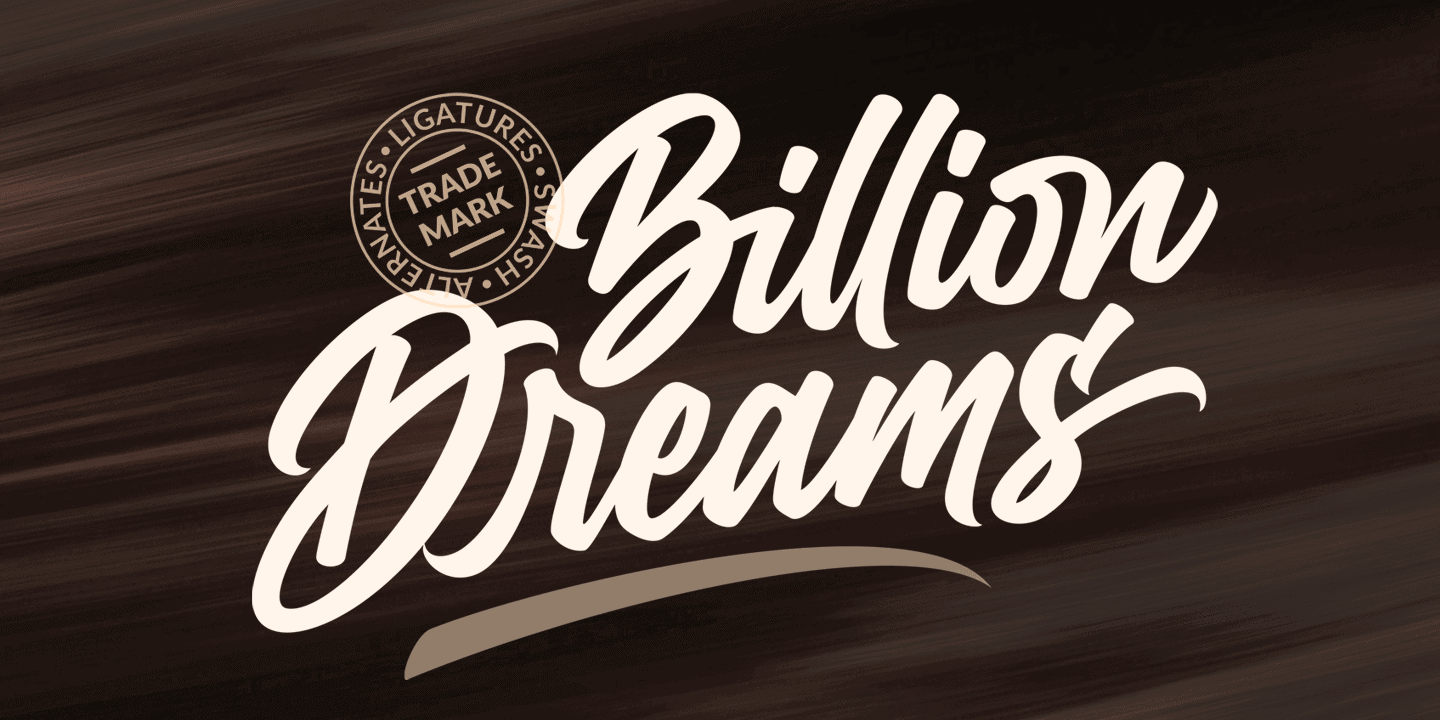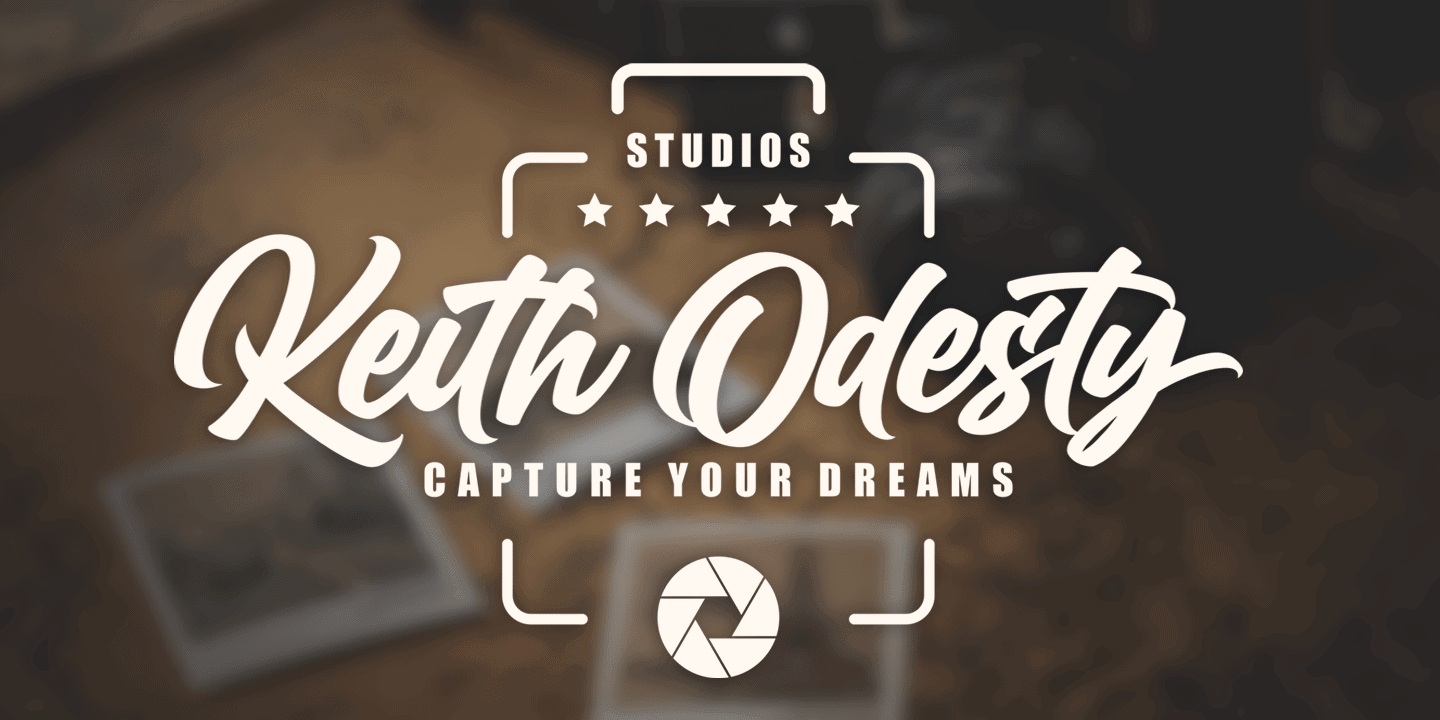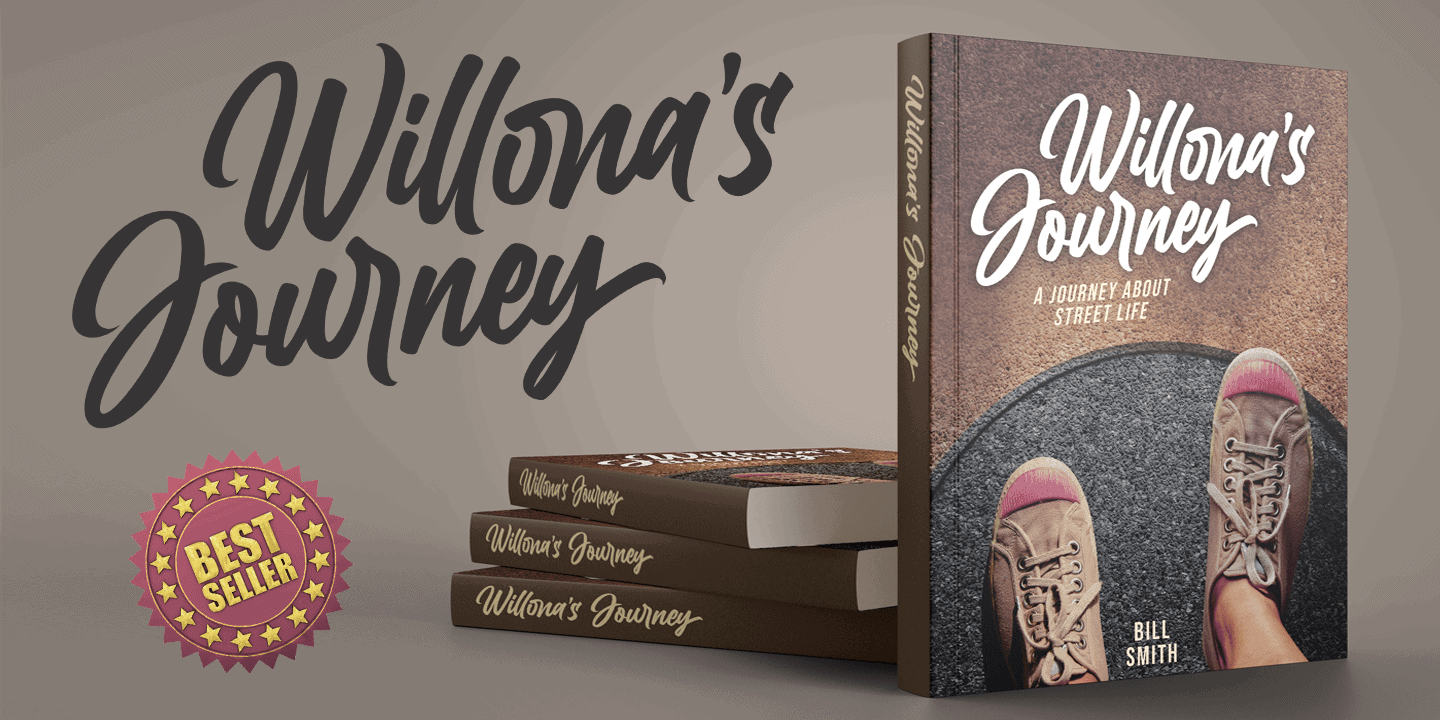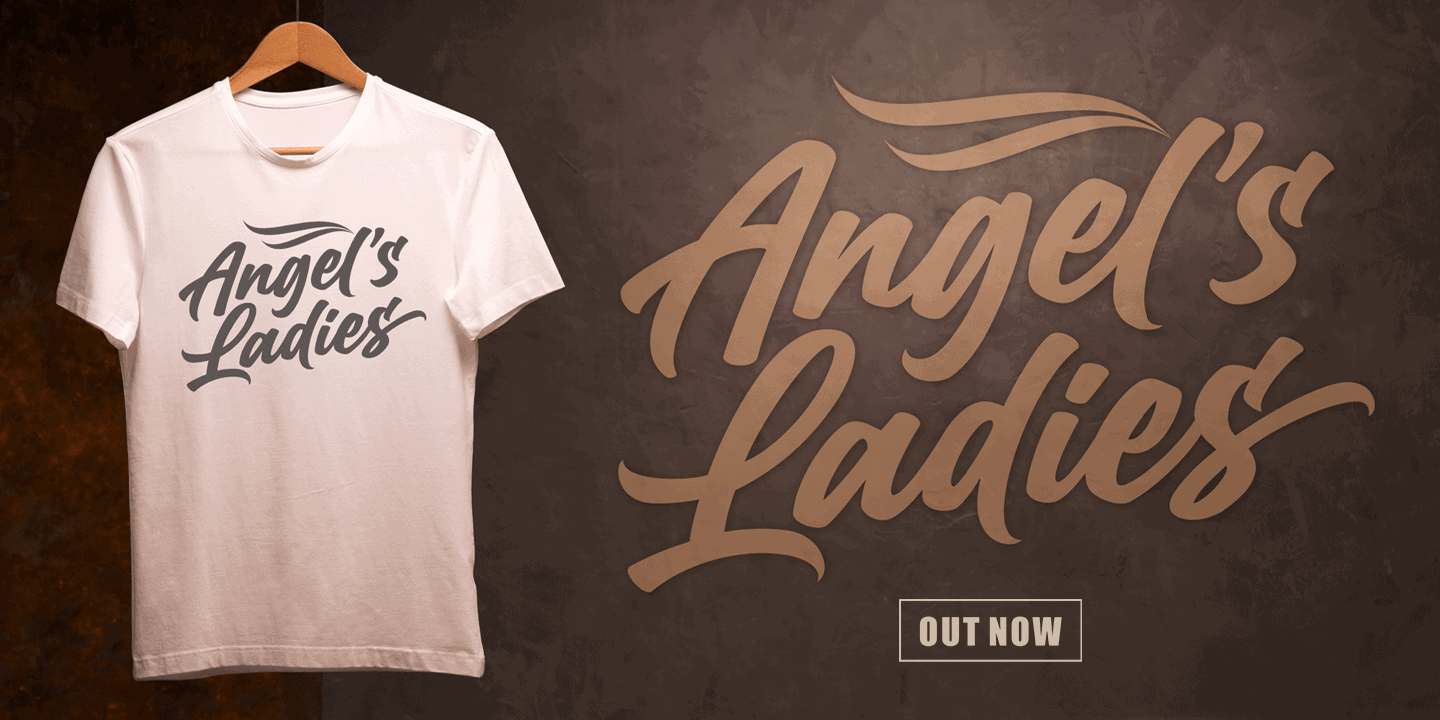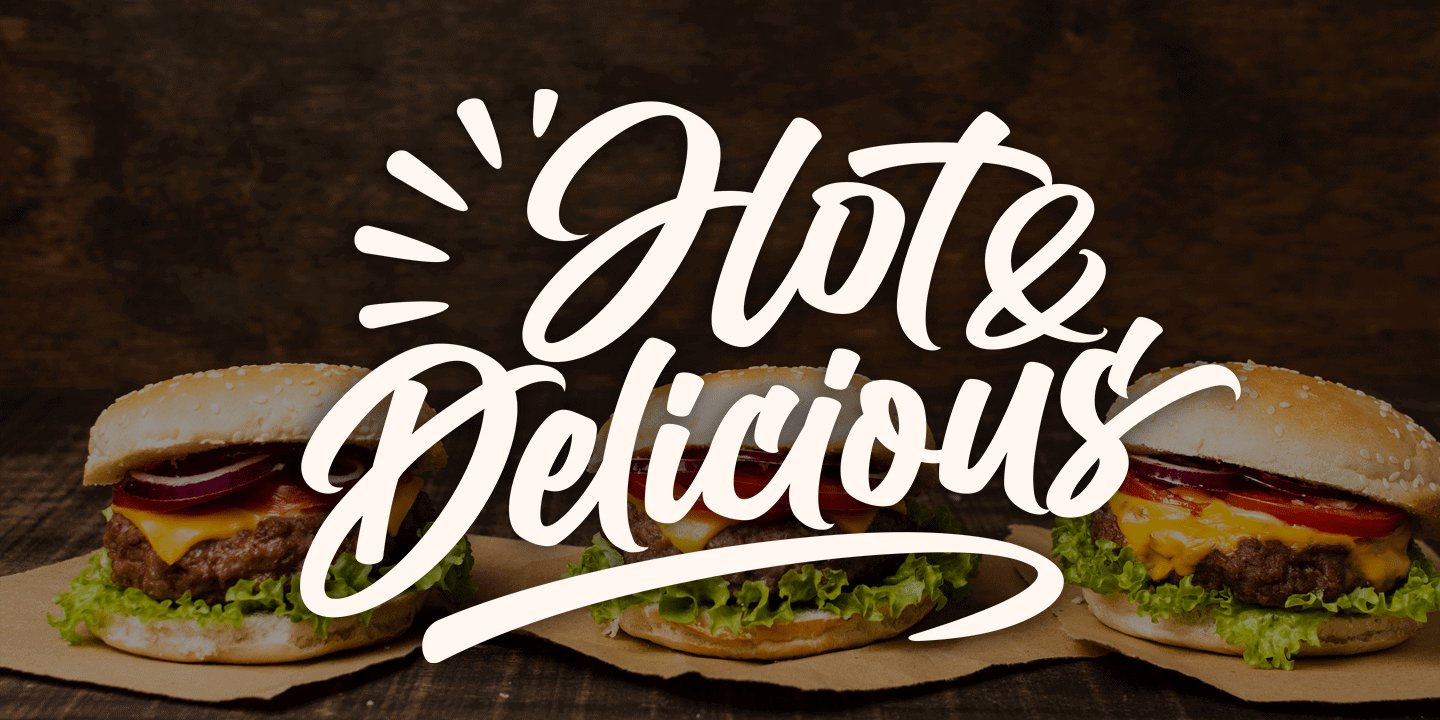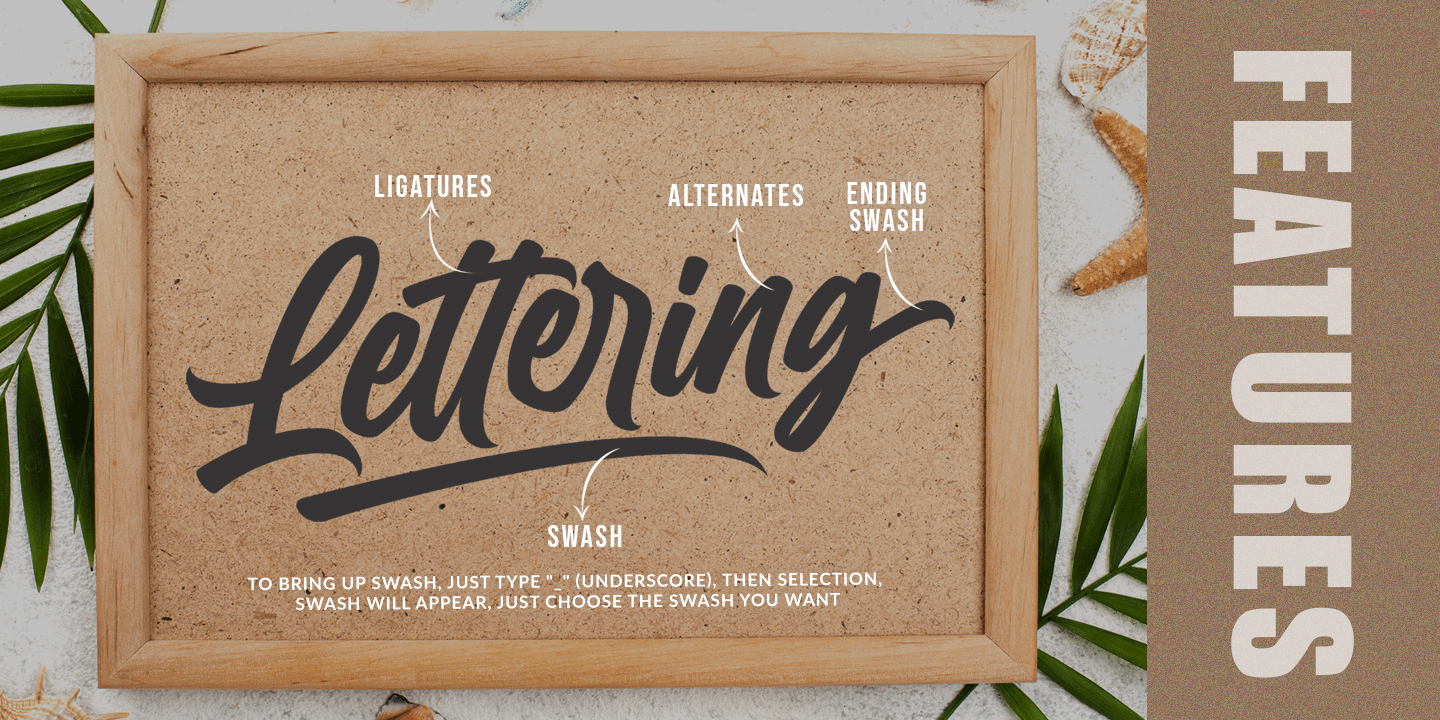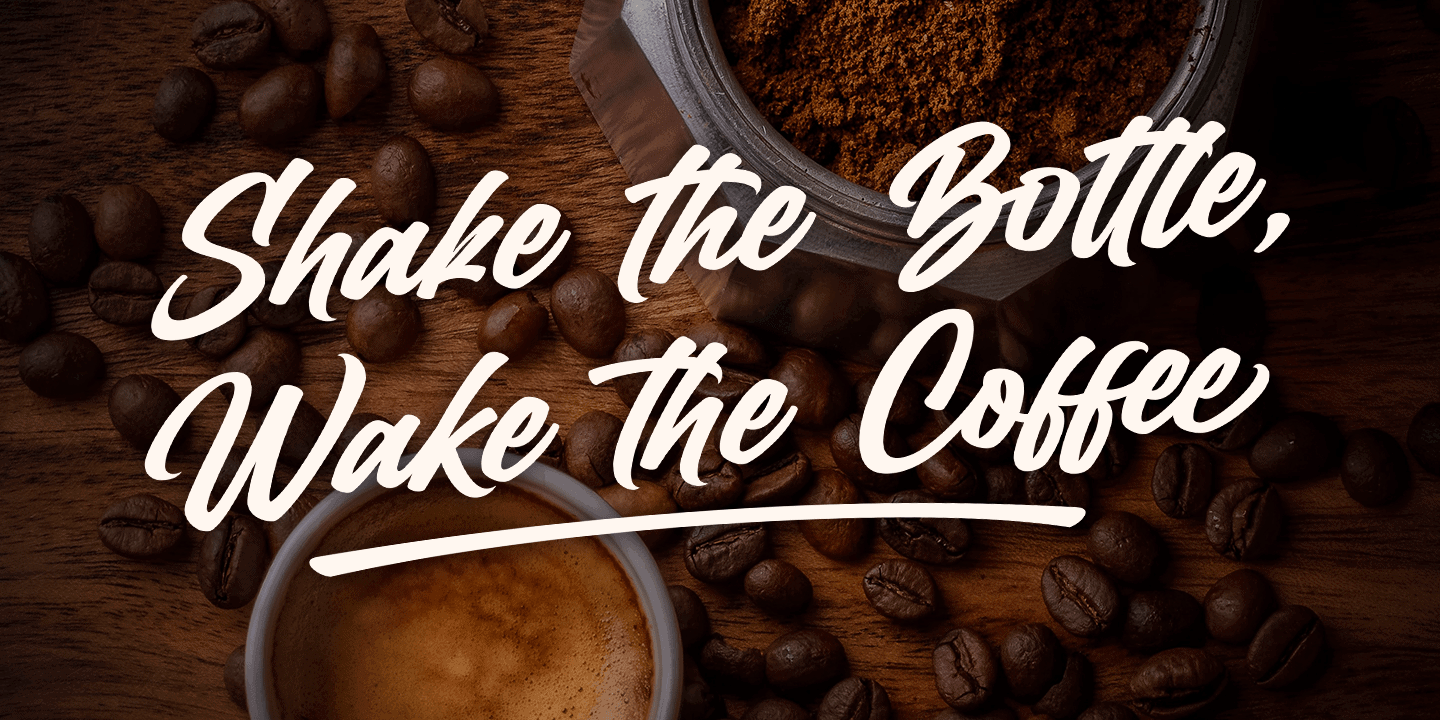
Billion Dreams Font
About the Billion Dreams Font
Billion Dreams is a cool logotype script font. It has thick brush strokes that gives character and personality to any graphic. It contains stylistic alternates, swash alternates, ligatures and swash characters — all to give the font a great variability and avoid repetitiveness. It has an extensive lingual support, covering all European Latin scripts. The font contains all characters you’ll ever need, including all punctuation and numbers.